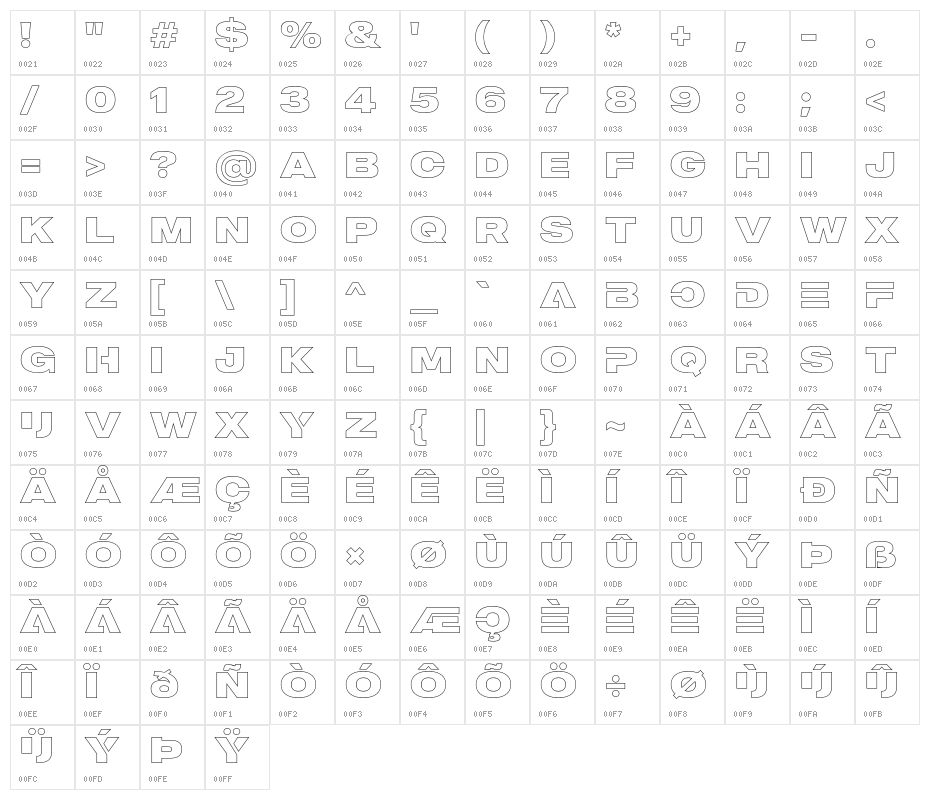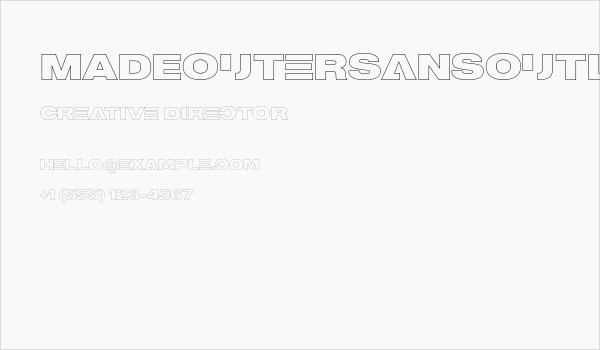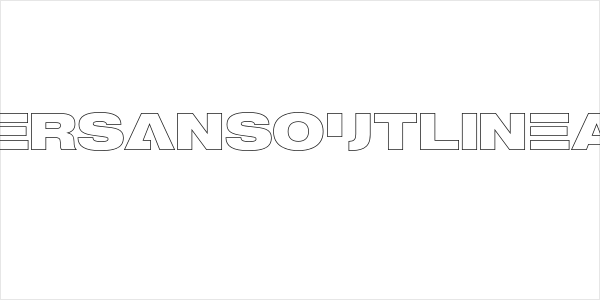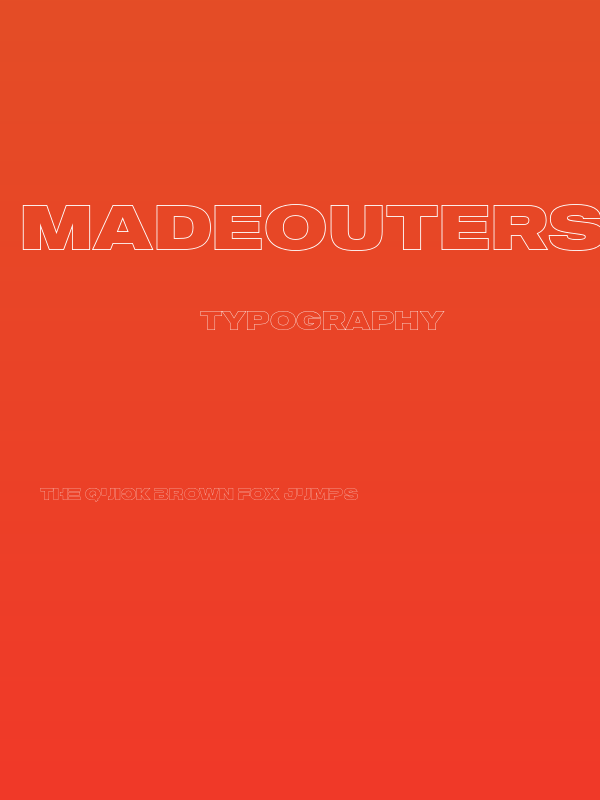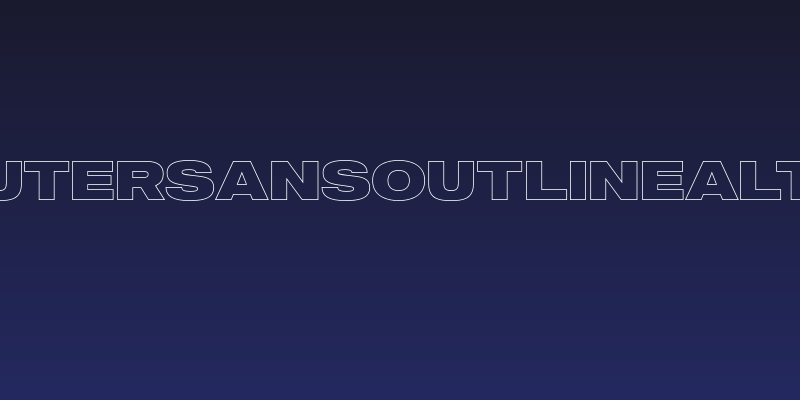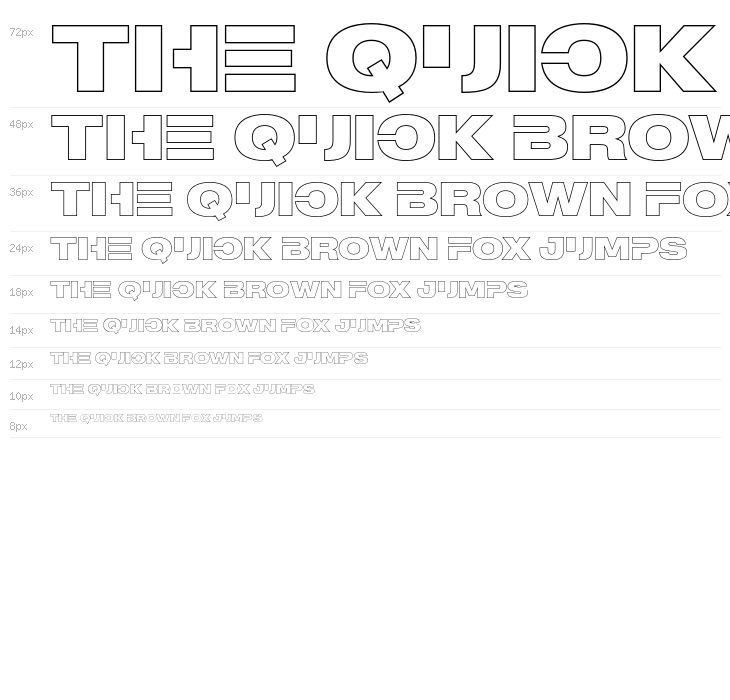
MADEOuterSansOutlineAlt-Black Font
MADEOuterSansOutlineAlt-Black Description
This font features a bold, geometric sans-serif style with a distinct outline effect, giving it a modern and striking appearance. The characters are uniform in width, with clean lines and sharp angles that enhance its contemporary feel. The uppercase letters are particularly prominent, with a strong presence that makes them ideal for attention-grabbing headlines or titles. The numerals and special characters maintain the same bold outline, ensuring consistency across all text elements. The font's design is versatile, suitable for both digital and print media, where a modern and impactful look is desired.